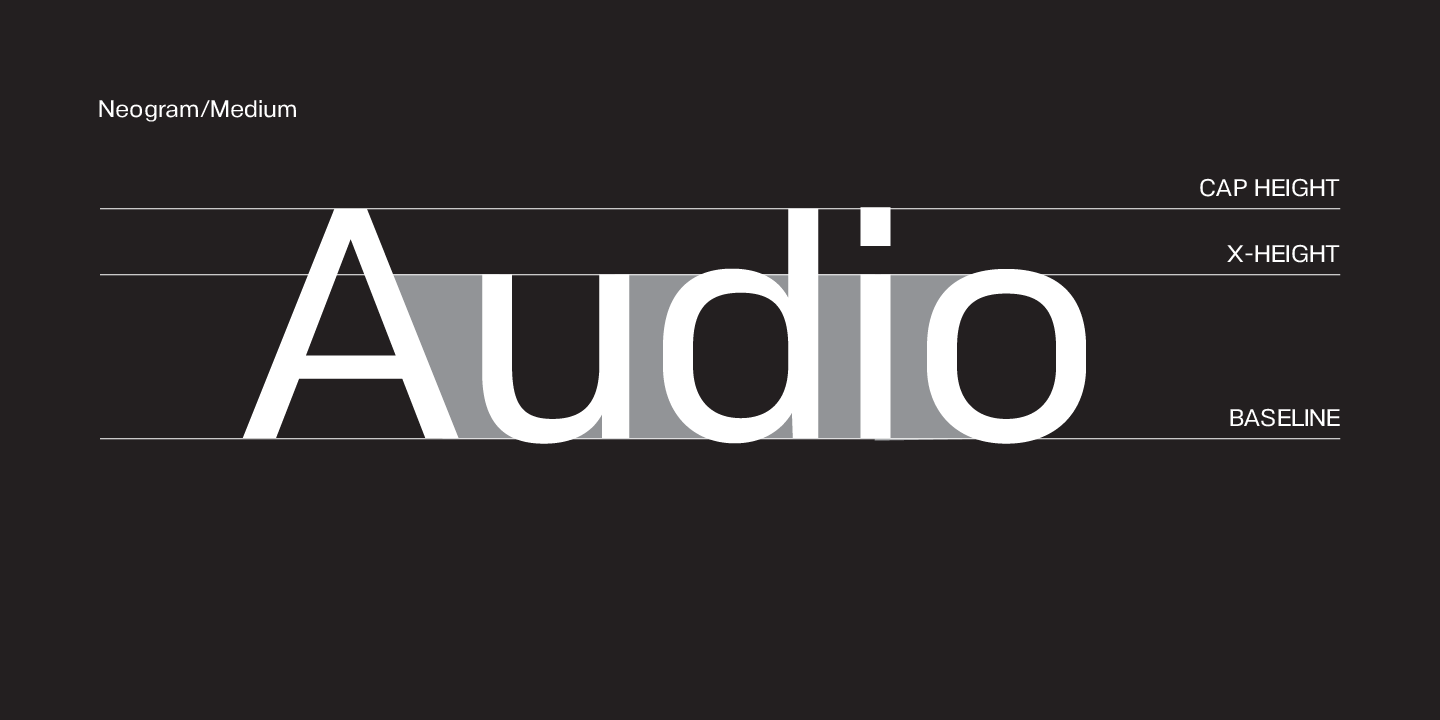
Neogram Font Crack . Web neogram sans serif font is а modern square sans font family of 54 fonts with a distinctive character and. Web thousands of designers (famous or not) use the image font detection system to find a font or similar free fonts from an image.
Stacked cracked is licensed under the following terms: The concept was to create a neutral typeface that would demonstrate great. Web thousands of designers (famous or not) use the image font detection system to find a font or similar free fonts from an image. The concept was to create a neutral.
Neogram Font Crack - Web free for personal use. Stacked cracked is licensed under the following terms: Web neogram sans serif font is а modern square sans font family of 54 fonts with a distinctive character and. Web you can test out your font by using the text box at the top of the page. Web download free cracked fonts and get creative!
Neogram Font Crack - Stacked cracked is licensed under the following terms: Web free for personal use. Web you can test out your font by using the text box at the top of the page. Web neogram sans serif font is а modern square sans font family of 54 fonts with a distinctive character and. The concept was to create a neutral.
Neogram Font Crack - Web free for personal use. Web you can test out your font by using the text box at the top of the page. Web neogram sans serif font is а modern square sans font family of 54 fonts with a distinctive character and. The concept was to create a neutral. Stacked cracked is licensed under the following terms:
Neogram Font Crack - Web neogram sans serif font is а modern square sans font family of 54 fonts with a distinctive character and. The concept was to create a neutral typeface that would demonstrate great. Web free for personal use. With a unique selection of styles and designs, you can find the perfect font for your project. Stacked cracked is licensed under the.
Neogram Font Crack - Web thousands of designers (famous or not) use the image font detection system to find a font or similar free fonts from an image. Not free for commercial use. Stacked cracked is licensed under the following terms: The concept was to create a neutral typeface that would demonstrate great. With a unique selection of styles and designs, you can find.
Neogram Font Crack - With a unique selection of styles and designs, you can find the perfect font for your project. Web free for personal use. The concept was to create a neutral typeface that would demonstrate great. Web download free cracked fonts and get creative! Web thousands of designers (famous or not) use the image font detection system to find a font or.
Neogram Font Crack - Web download free cracked fonts and get creative! Web neogram sans serif font is а modern square sans font family of 54 fonts with a distinctive character and. With a unique selection of styles and designs, you can find the perfect font for your project. The concept was to create a neutral typeface that would demonstrate great. Stacked cracked is.
Neogram Font Crack - Web free for personal use. Stacked cracked is licensed under the following terms: Web you can test out your font by using the text box at the top of the page. The concept was to create a neutral. The concept was to create a neutral typeface that would demonstrate great.
Neogram Font Crack - With a unique selection of styles and designs, you can find the perfect font for your project. Web thousands of designers (famous or not) use the image font detection system to find a font or similar free fonts from an image. Web neogram sans serif font is а modern square sans font family of 54 fonts with a distinctive character.
Neogram Font Crack - Once you're finished editing you can save your font and share the. Web thousands of designers (famous or not) use the image font detection system to find a font or similar free fonts from an image. The concept was to create a neutral typeface that would demonstrate great. Web download free cracked fonts and get creative! With a unique selection.
Neogram Font Crack - With a unique selection of styles and designs, you can find the perfect font for your project. Web download free cracked fonts and get creative! Web neogram sans serif font is а modern square sans font family of 54 fonts with a distinctive character and. The concept was to create a neutral. Not free for commercial use.